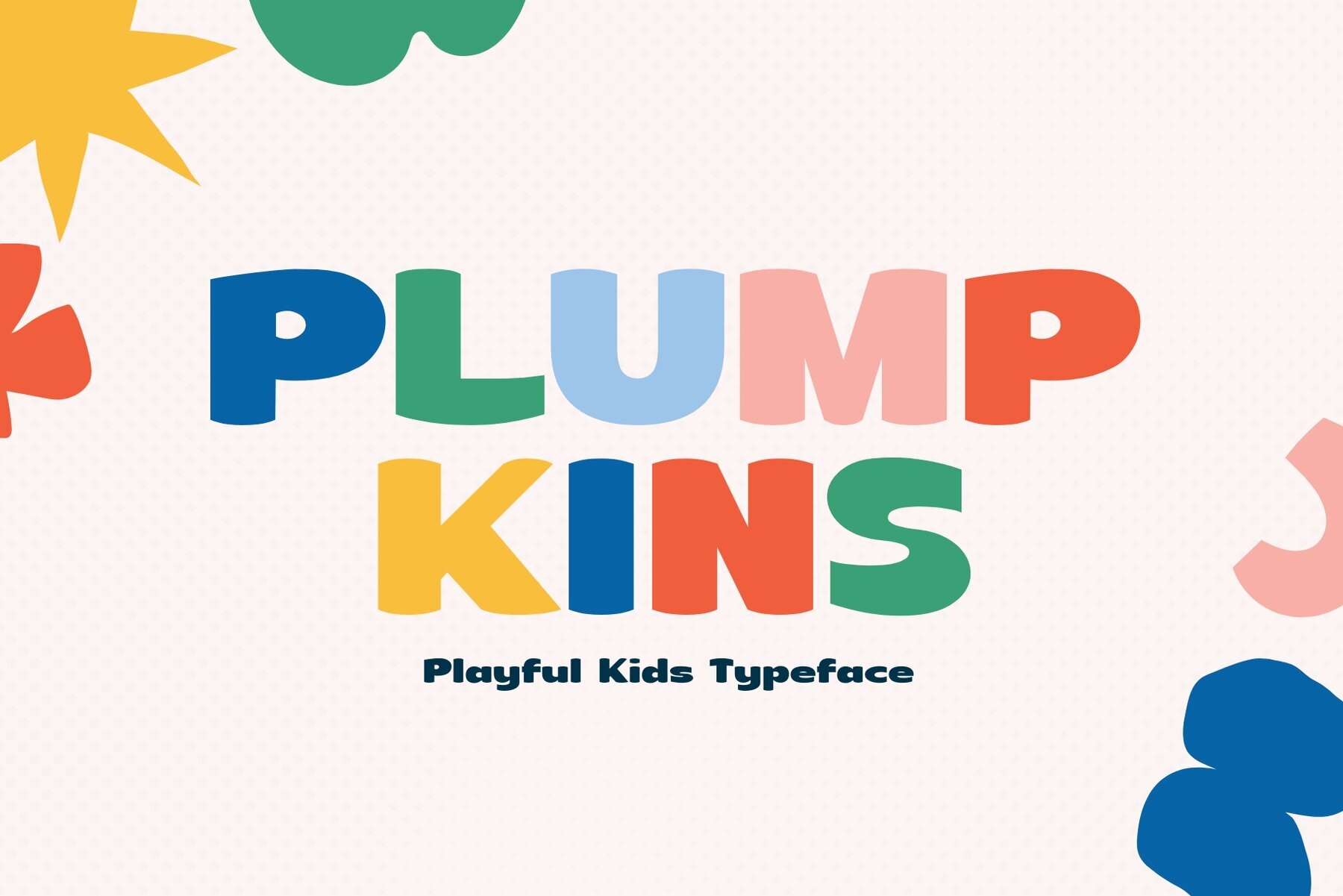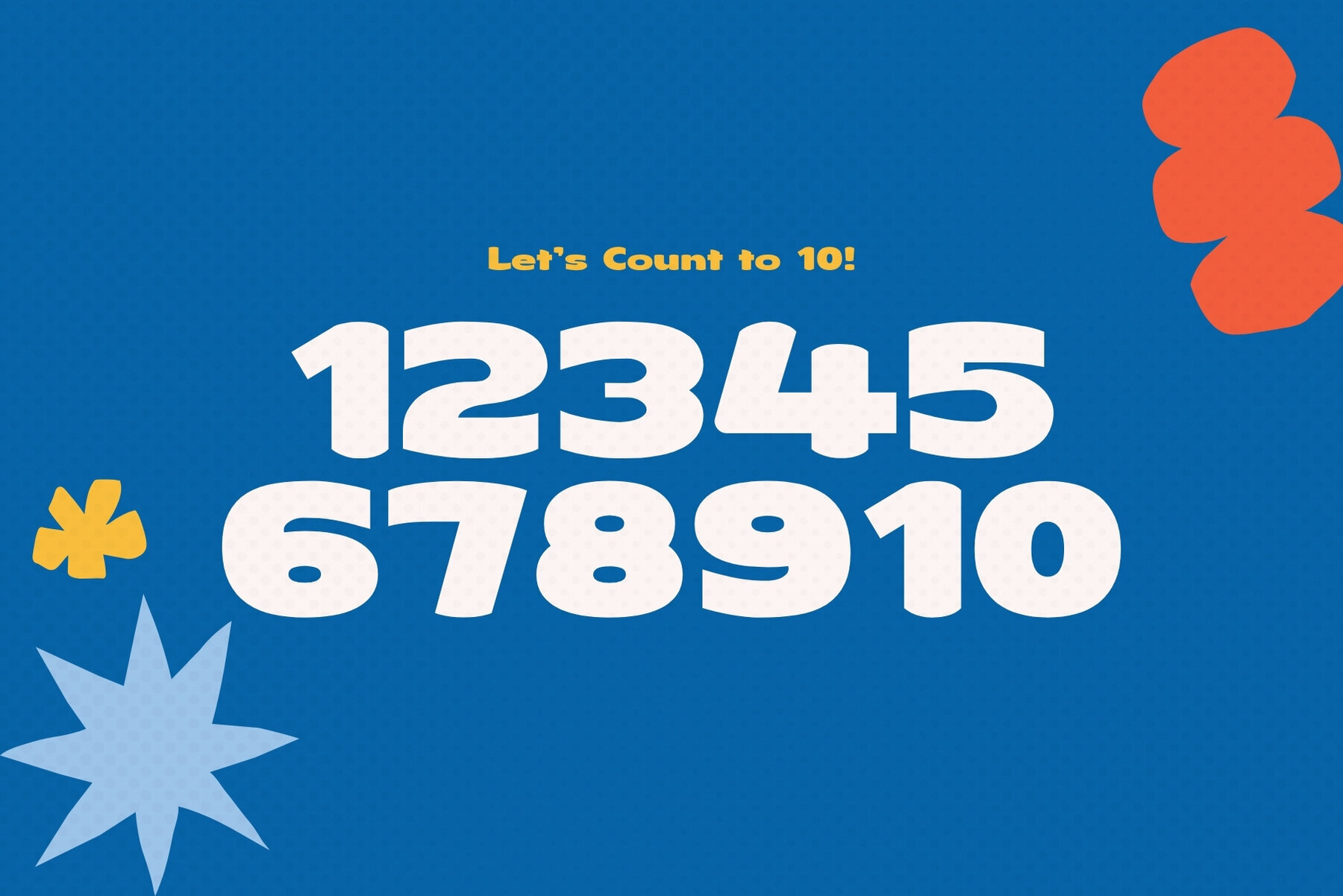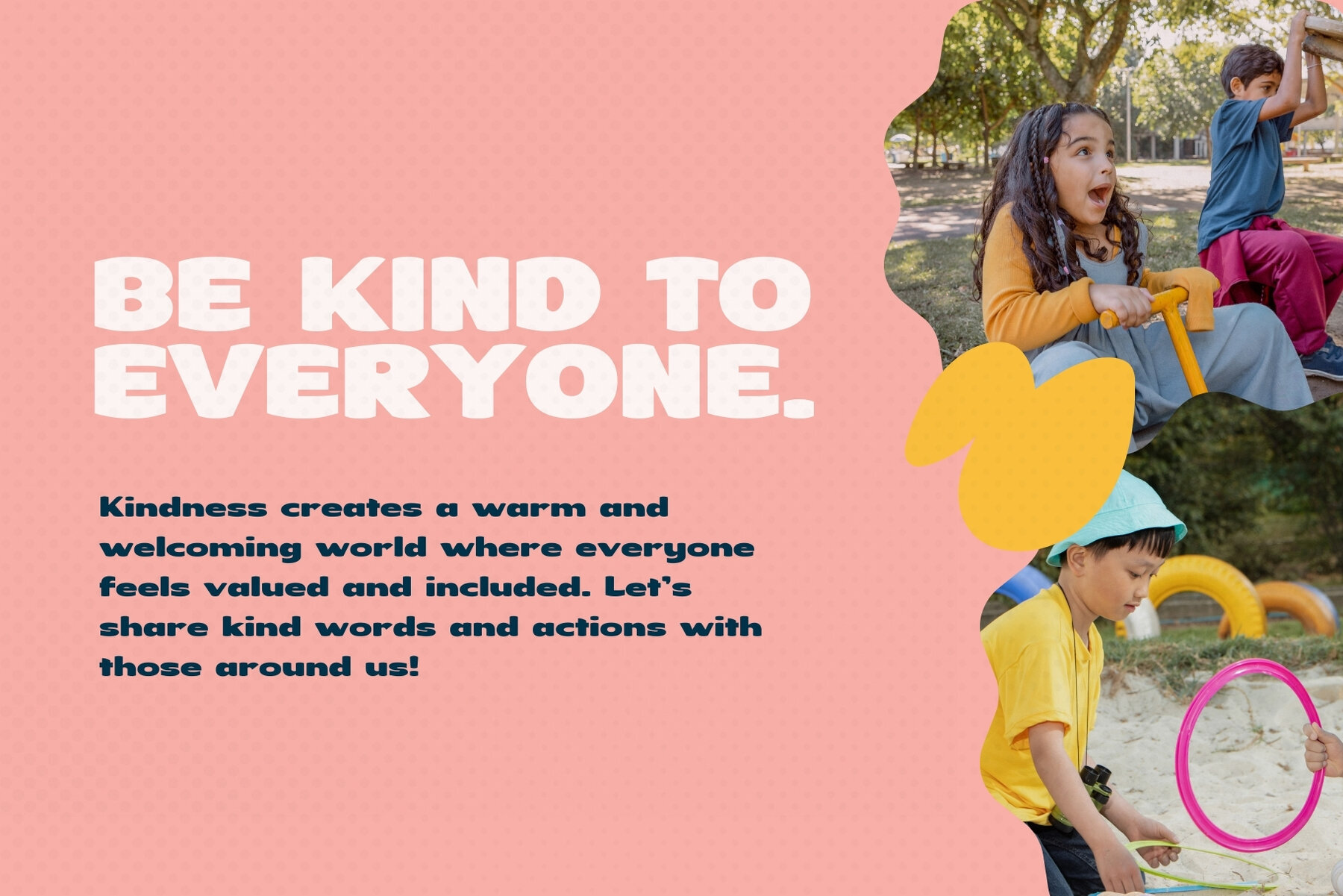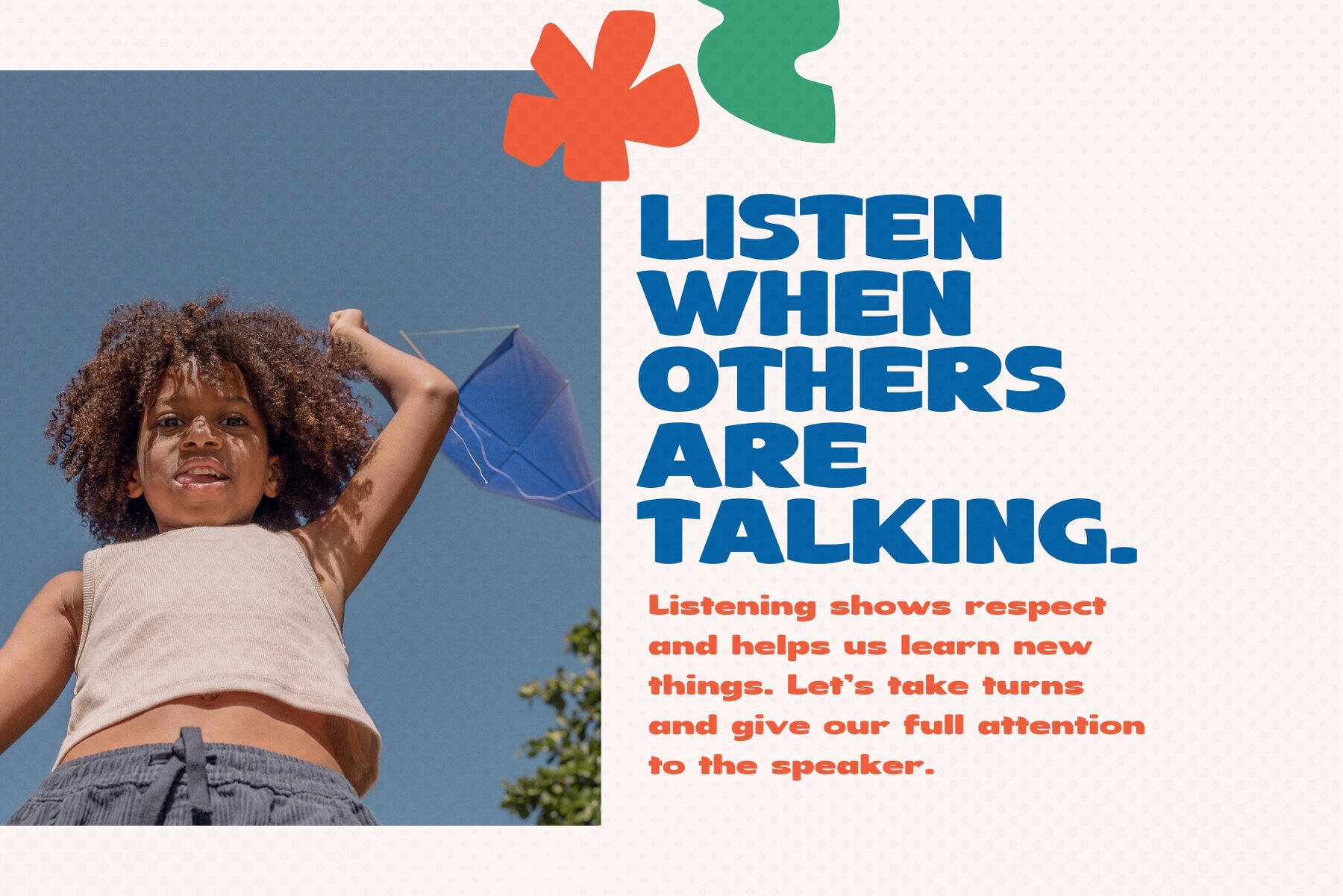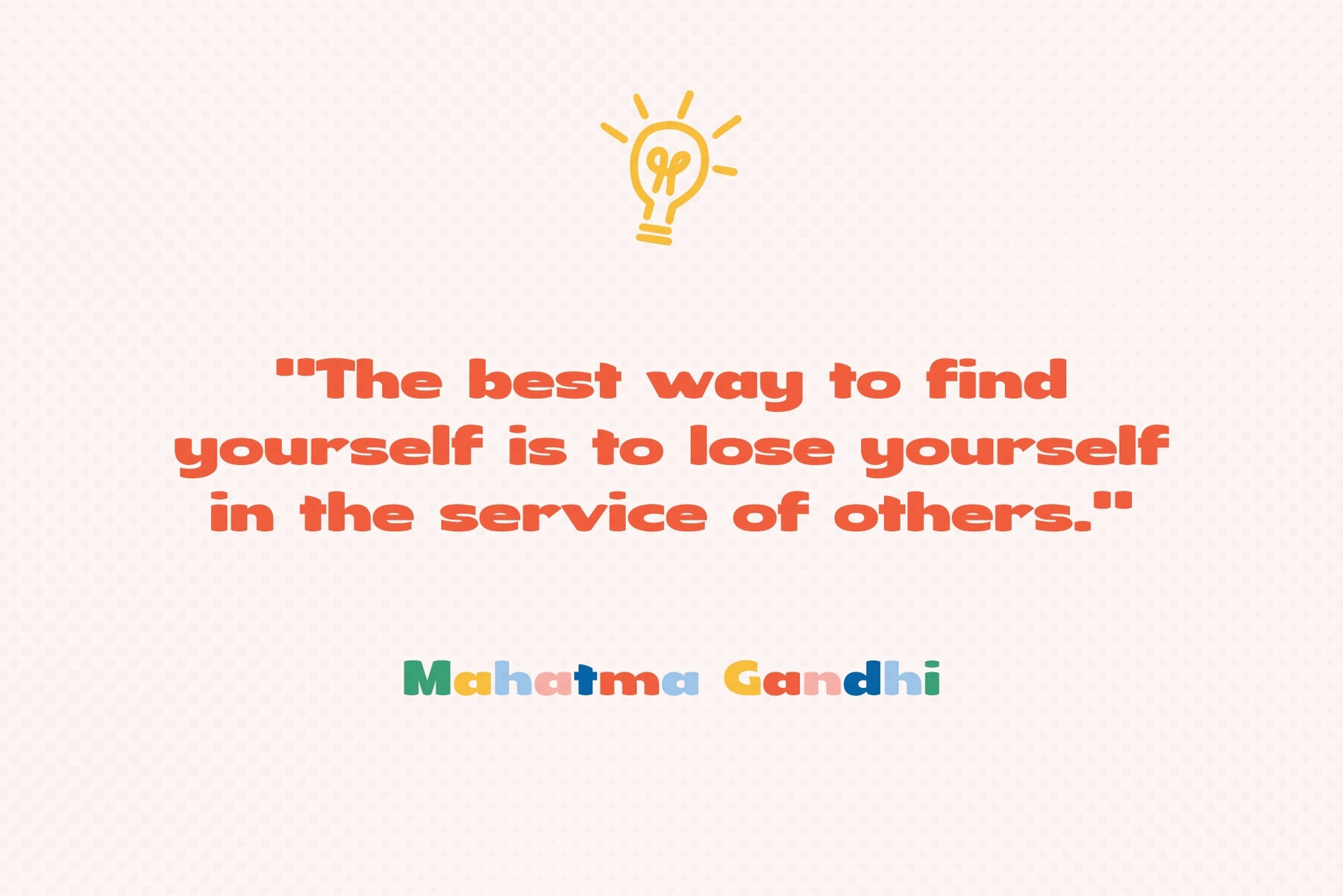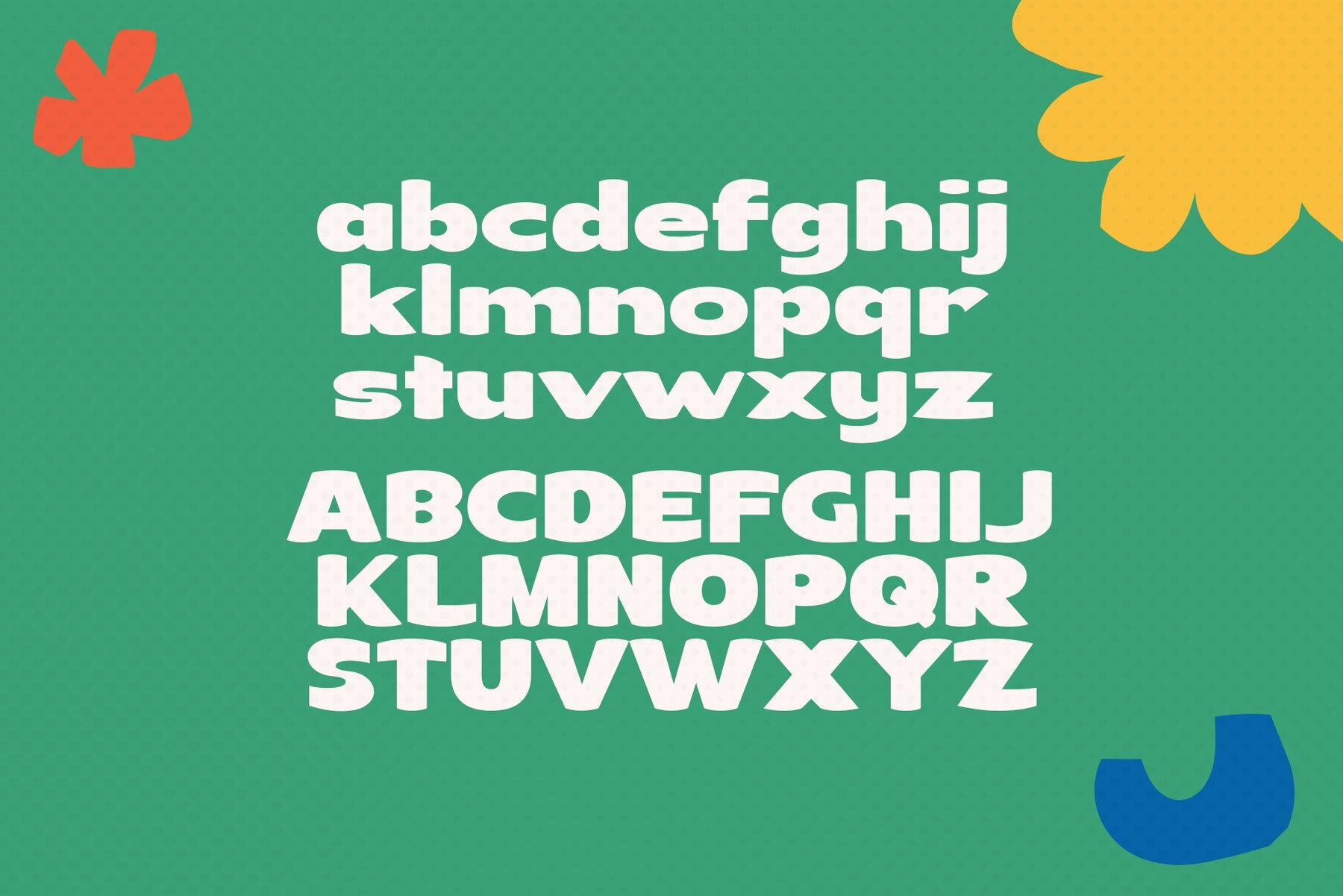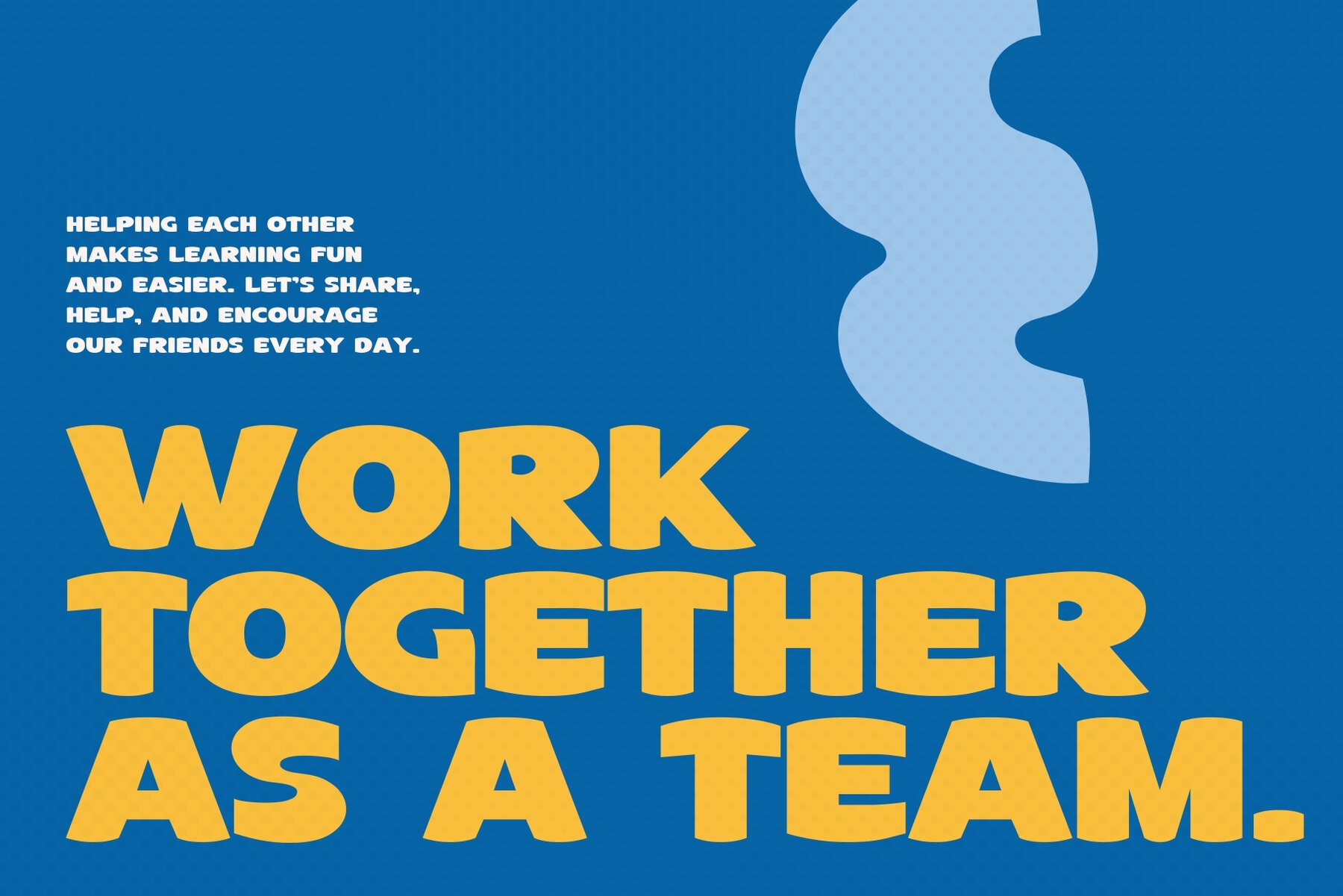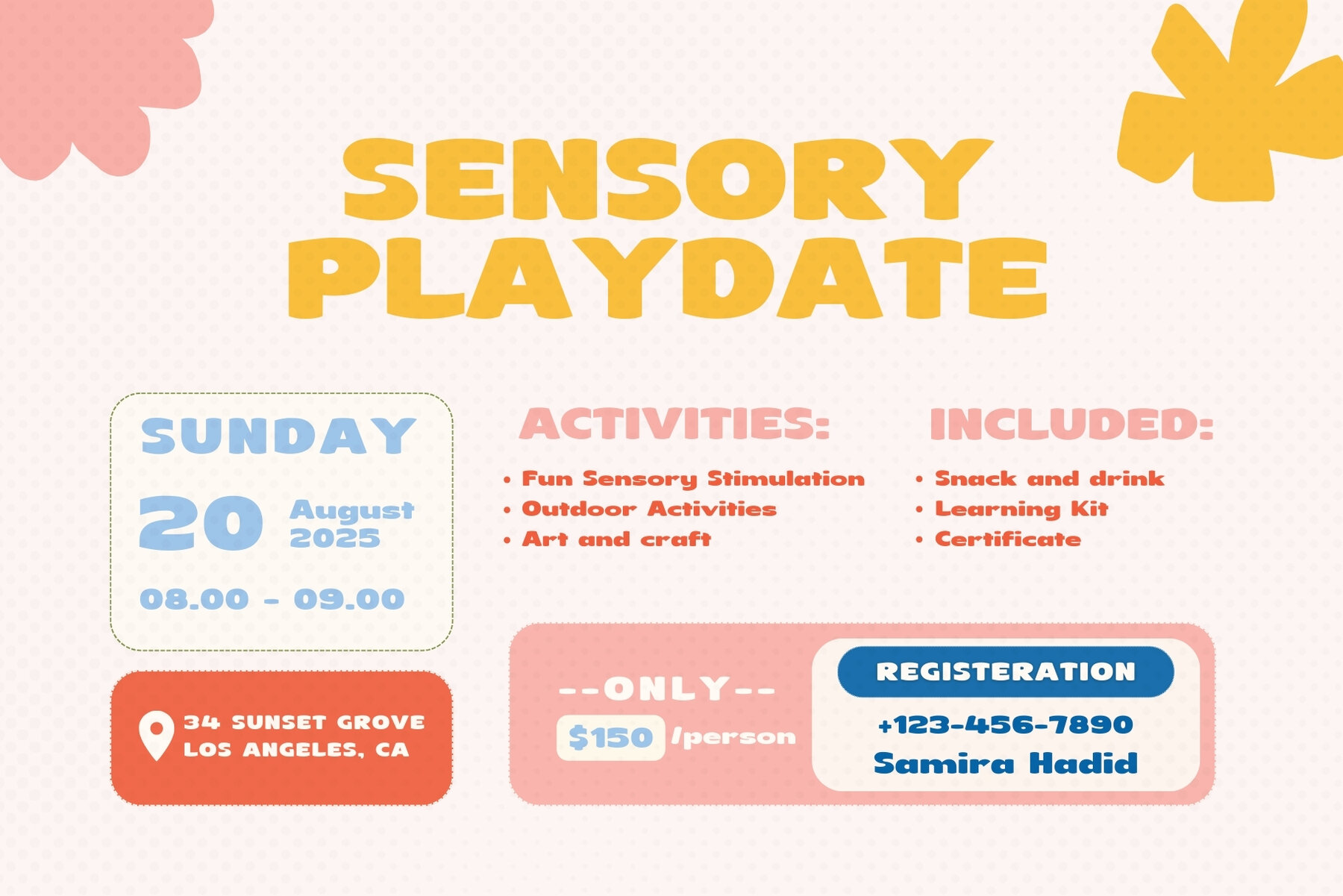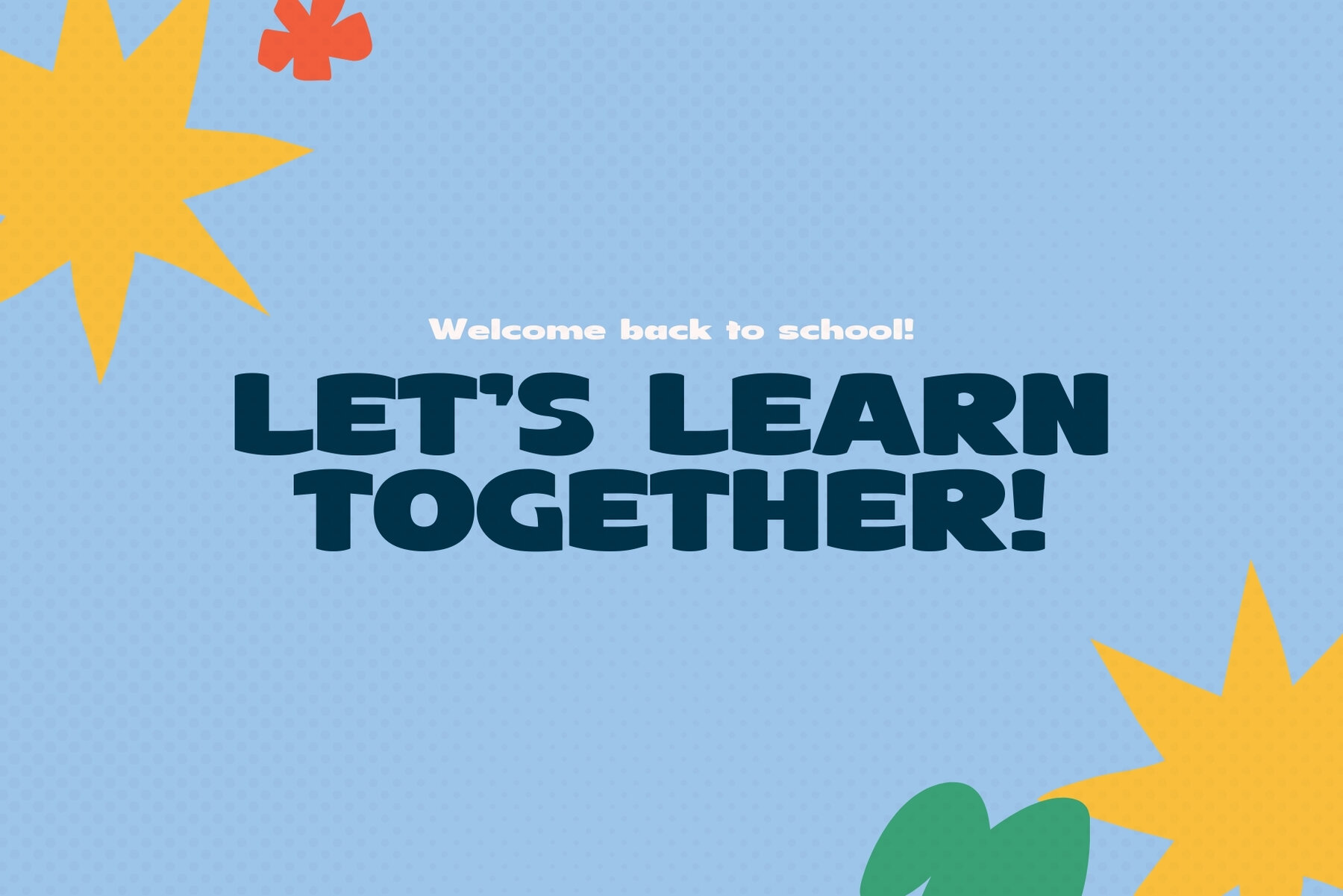
Plumpkins Font
Plumpkins
Meet Plumpkins, the charming sans-serif typeface that infuses joy and fun into every project. Its bold and plump design makes it ideal for children's projects, storybooks, educational content, and playful branding applications. Plumpkins' soft, rounded edges and lively character instantly convey warmth and friendliness, ensuring every word feels inviting. Use Plumpkins to craft cheerful posters, playful logos, or enchanting children's book covers that captivate audiences with their delightful charm. It's the perfect pick for adding that spirited touch of excitement and joy to your creative endeavors.Plumpkins Typeface